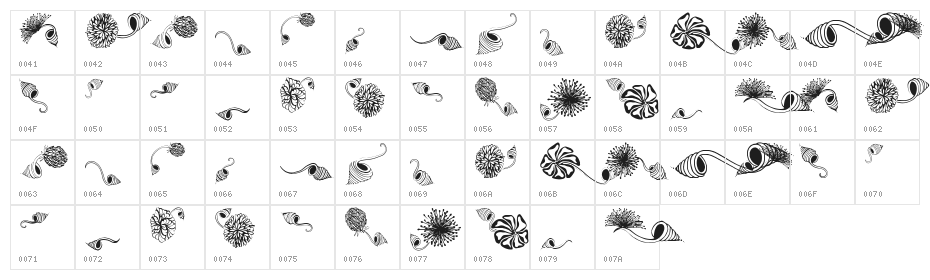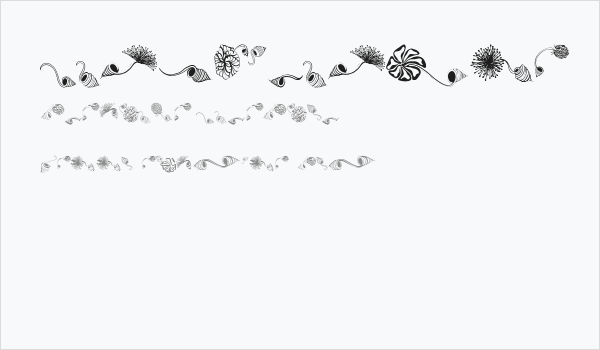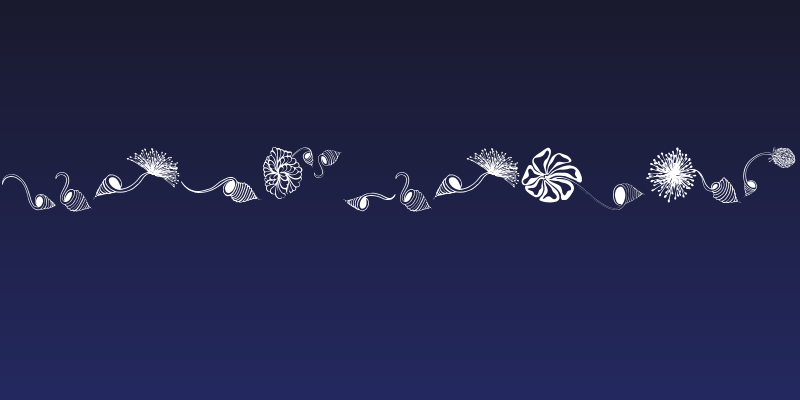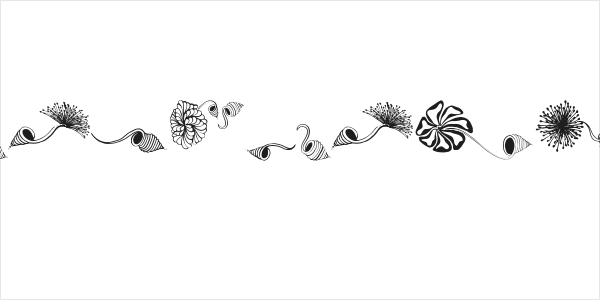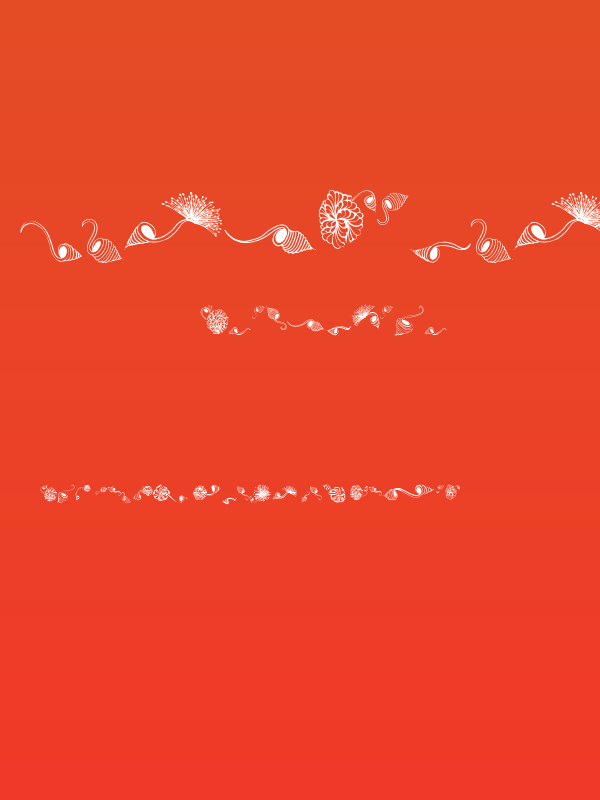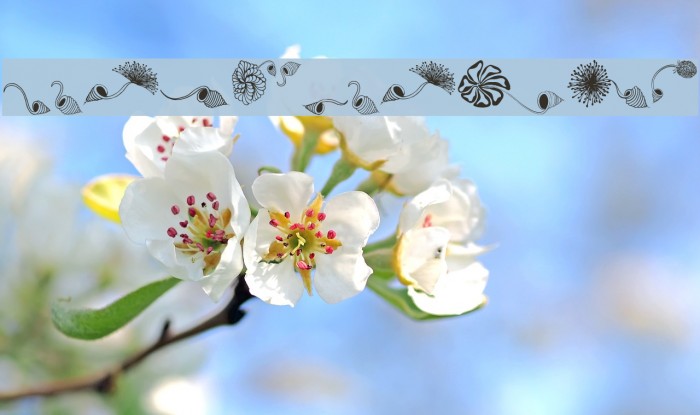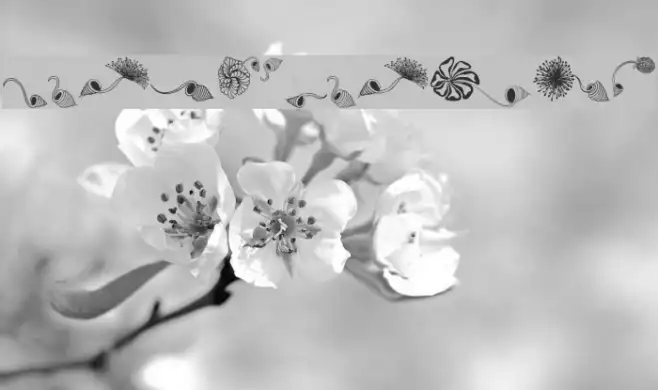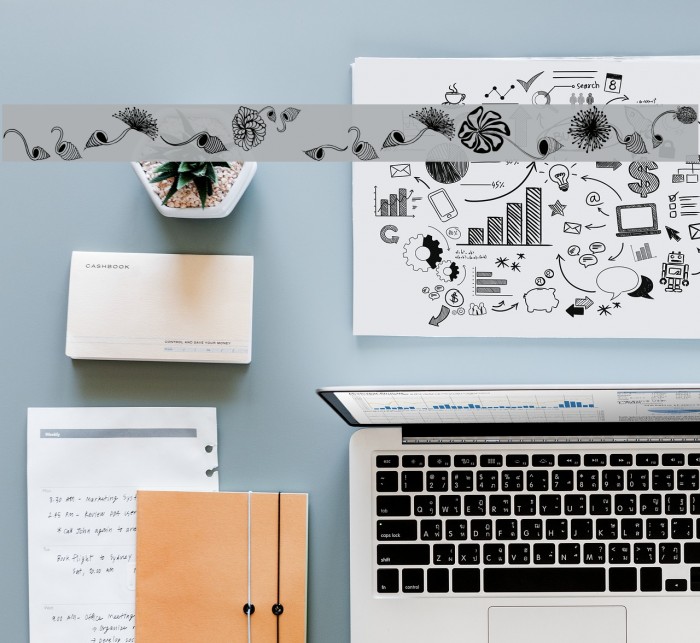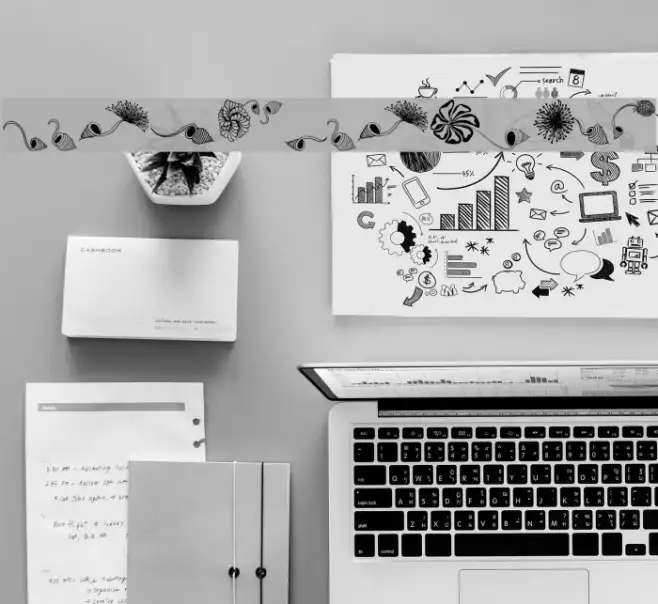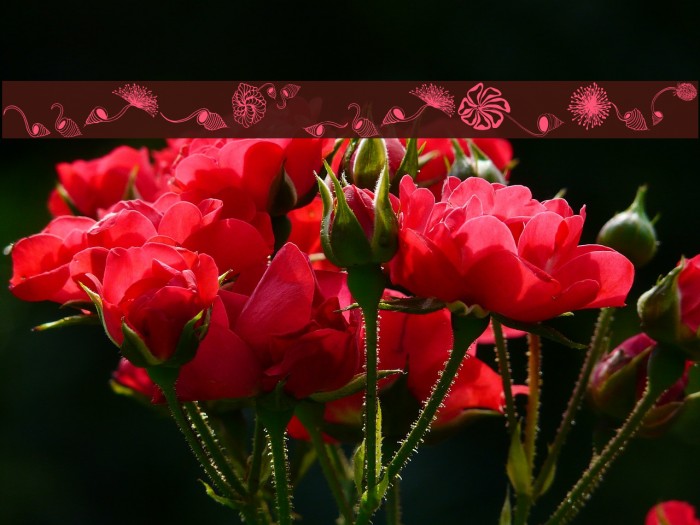
Dingsprinkle Font
Dingsprinkle Description
A highly decorative dingbat font featuring whimsical, hand-drawn floral and botanical motifs with intricate linework and organic shapes. Each glyph is a unique illustration rather than a traditional alphanumeric character.
| Overall Style | Decorative, Whimsical, Artistic |
| Use Case | Decorative elements, Borders, Accents |
| Proposed Projects | Invitations, greeting cards, decorative borders, scrapbooking, artistic posters, packaging design. |